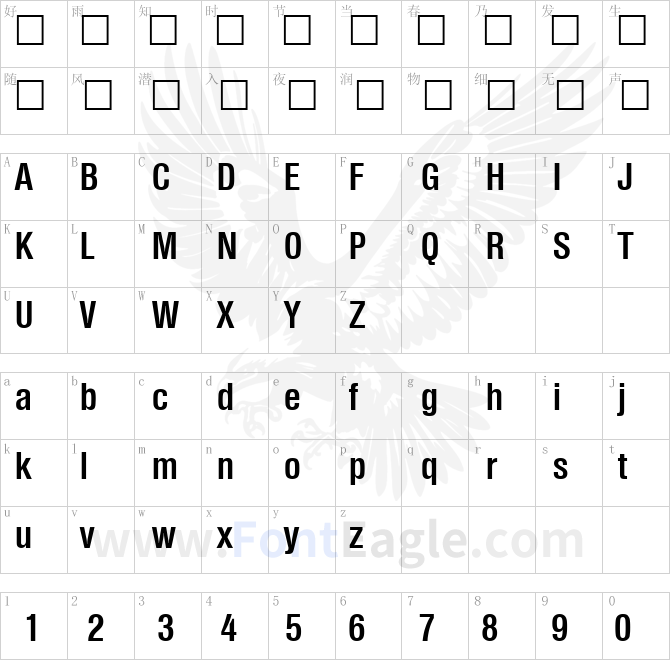
- Font name:Olympia-DemiBoldCond
- Font Subfamily ID:B & P Graphics Ltd.:Olympia-DemiBoldCond
- Font Full Name:Olympia-DemiBoldCond
- Font Version:B & P Graphics Ltd.:26.6.1993
- Postscript:Olympia-DemiBoldCond